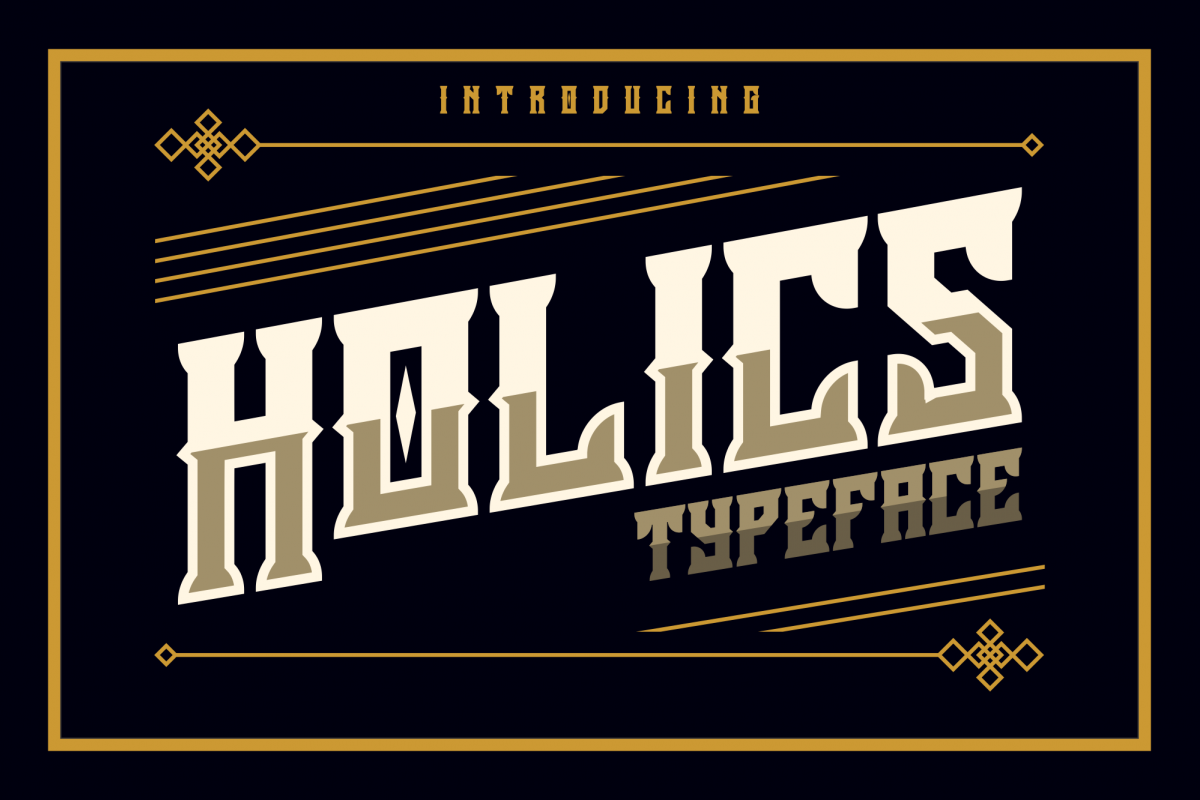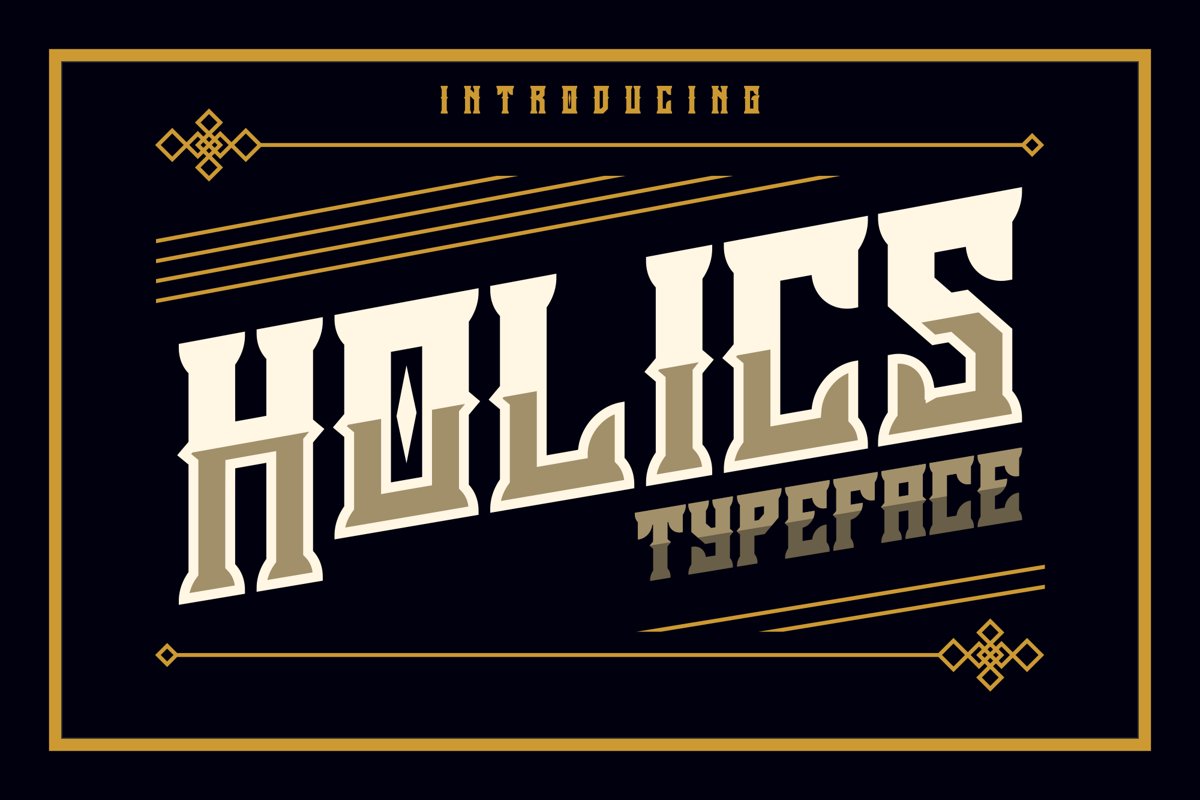
Holics Typeface
Holics
Holics Italic
Holics Typeface is a Decorative/Gothic font. Suits best for headline, tattoos, band name, Poster, banner, and many more.
Variations : Regular and Italic